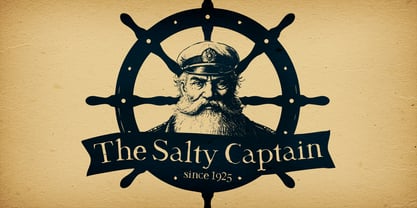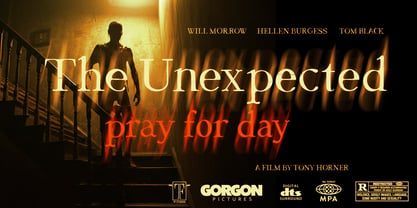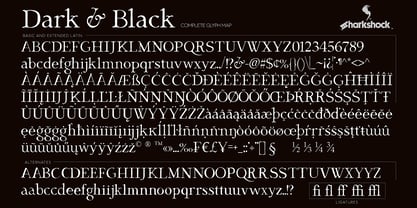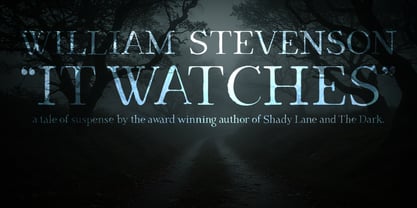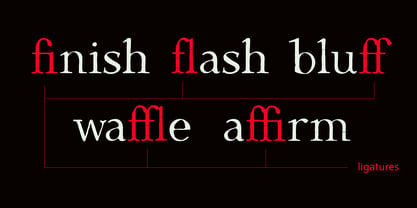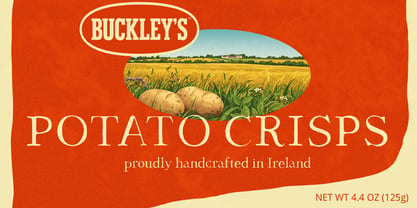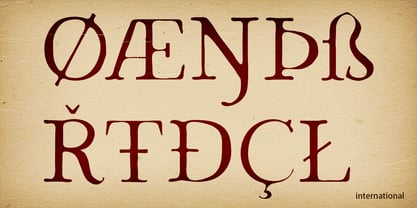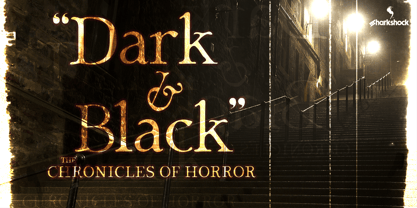
Dark & Black
by Sharkshock
The Dark & Black Font Family was designed by Dennis Ludlow and published by Sharkshock. Dark & Black contains 1 styles. More about this family
Dark & Black is a horror themed display font modeled after classic Roman letters with subtle levels of distress. It features a high contrast texture that improves legibility at smaller. When scaled down or from far away it appears fairly normal but at larger sizes the effect is more apparent. Use it for a book cover, horror movie poster, or Halloween decorations. Basic Latin, Extended Latin, alternates, and kerning are included.